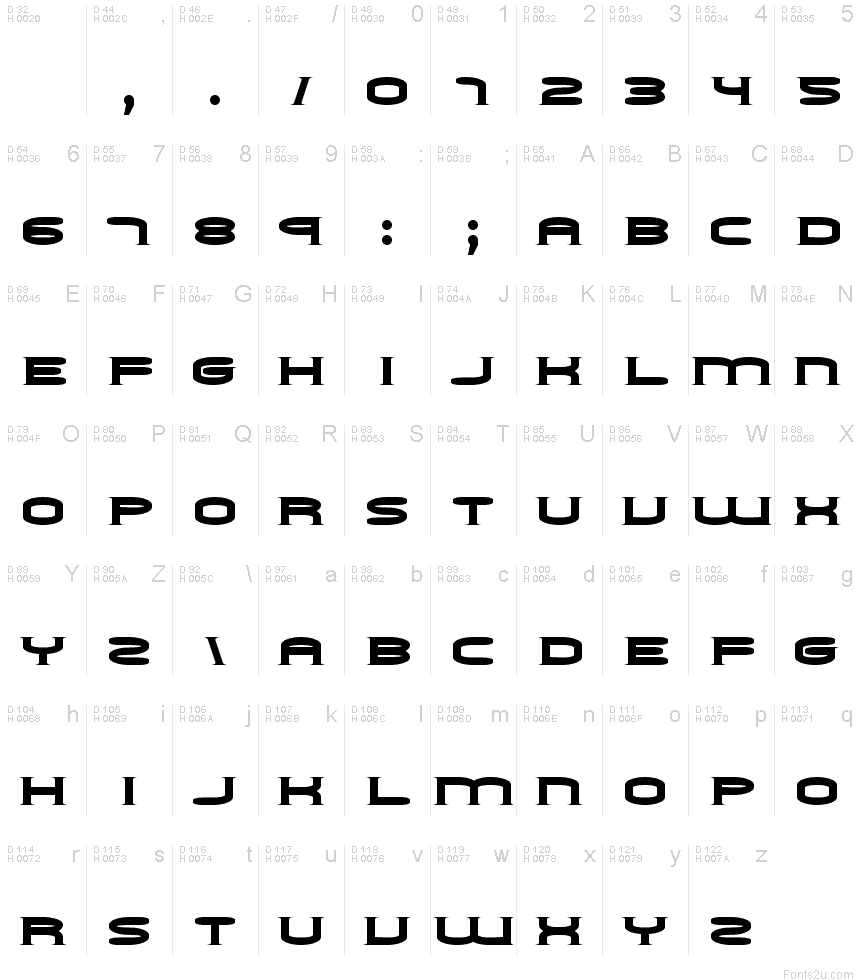
Choker
Choker font by Claes Kallarsson is a free retro display typeface that looks like it’s been squeezed through a sleek, rubbery mold. Wide, pill-shaped letters, tight spacing, and chunky black forms give it a heavy, almost mechanical rhythm that still feels playful and soft at the edges. It has a distinct late‑90s techno attitude-bold, streamlined, and a little bit claustrophobic in a way that commands attention on any layout.
Using Choker, you get a statement piece that shines in logos, rave or club posters, experimental album covers, sci‑fi titles, skateboard graphics, and edgy packaging. This free font works best when you set it big and give it room to breathe, then support it with a clean geometric sans for body copy.